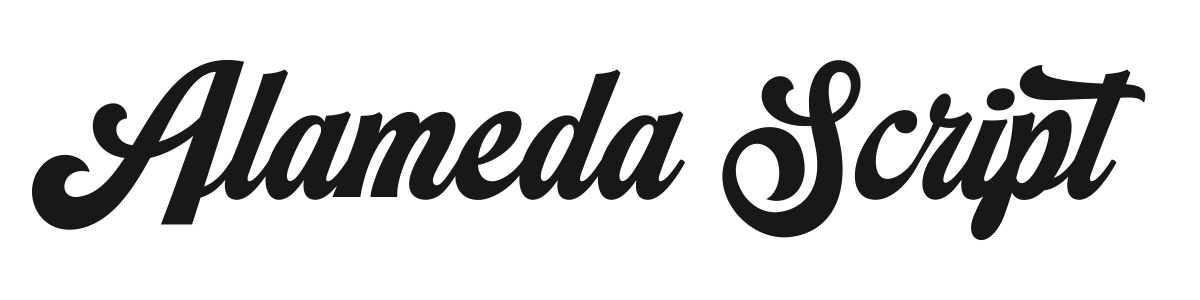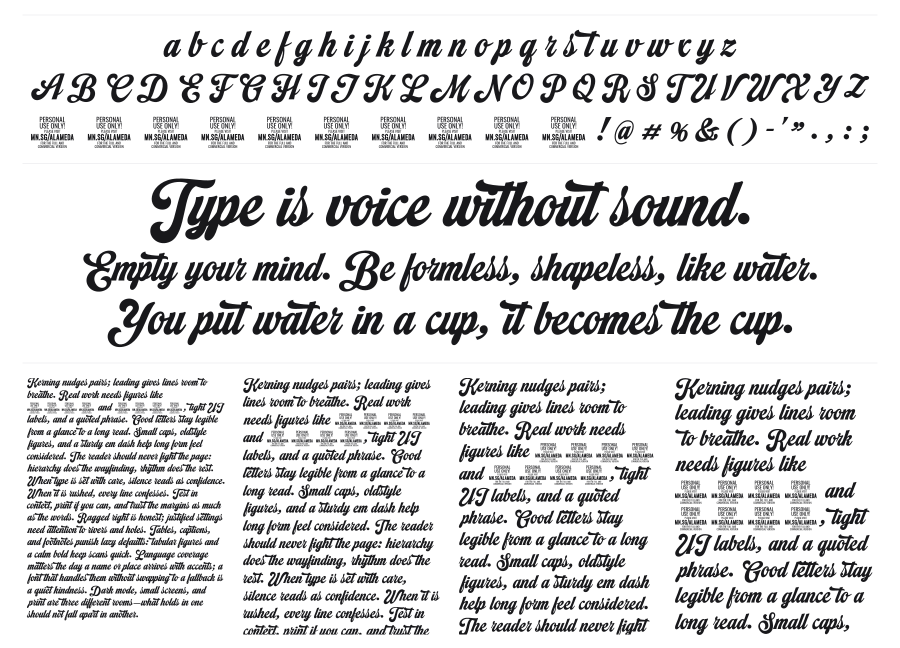
Alameda Script
by Måns Grebäck · Website
Alameda Script is a bold connected calligraphic script designed by Mans Greback in 2022, built around the visual language of championship sports lettering. Strong stroke contrast, looping ascenders, and sharp terminals give it the kind of authoritative swagger that reads equally well on a team jersey or a craft beer label. Available in Regular, Bold, and Black weights with swash extensions triggered via underscores.